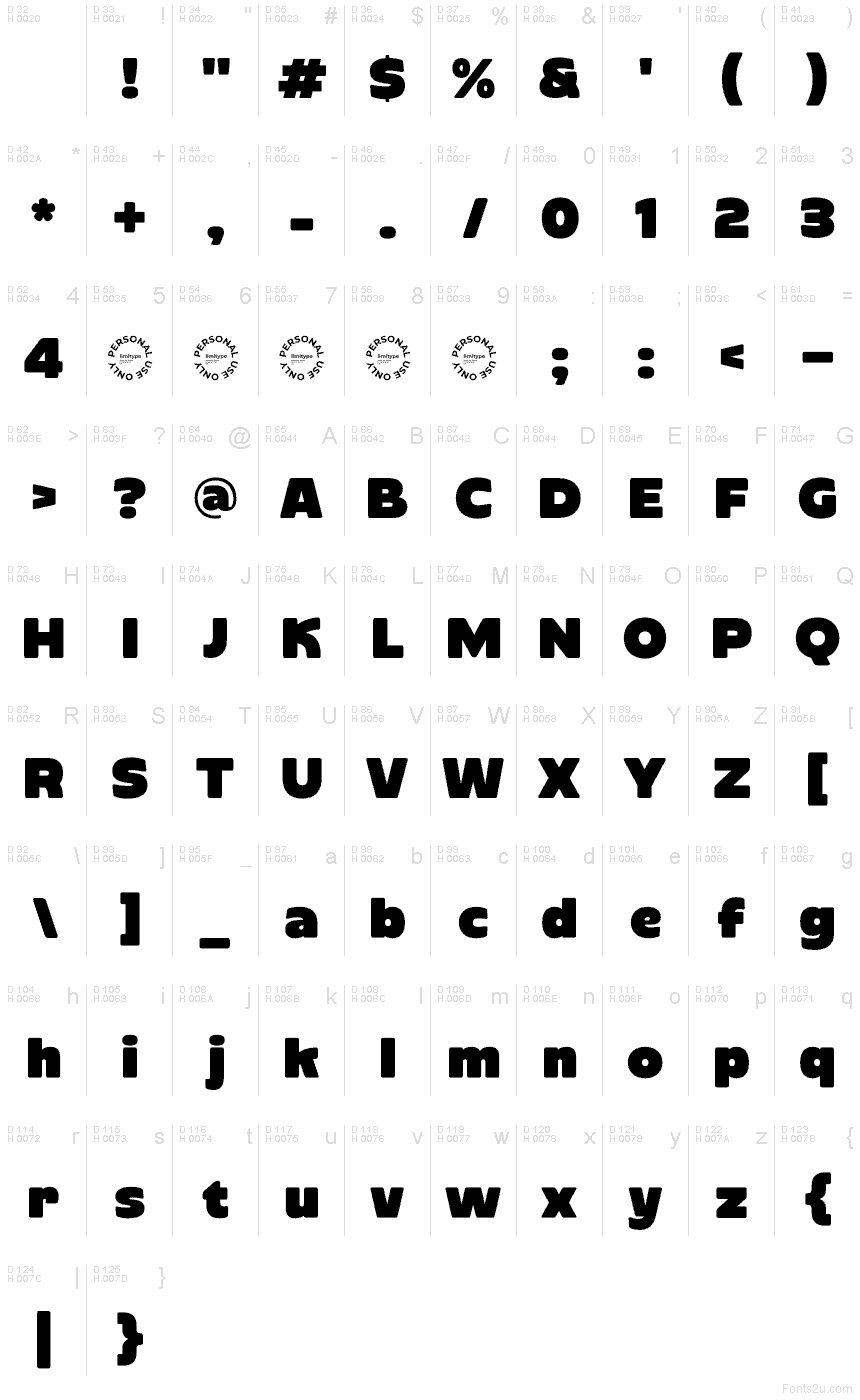
Kitora font by Limitype is a free rounded display sans serif font. Built around plush, oversized shapes and velvety curves, it delivers a bold voice without a hard edge. The letters feel pillowy and substantial, with generous bowls and tight rhythm that reads as friendly yet unmissable-like signage you can almost touch. It’s the rare chunky sans that stays legible when scaled down, but really sings when it’s big.
Using Kitora, headlines and logos gain instant warmth and punch. It shines on snack packaging, kids’ brands, café menus, playful posters, event flyers, app splash screens, and YouTube thumbnails. The smooth massing gives strong presence while keeping the tone upbeat. Pair this free font with a simple grotesk for body copy, and add a hair of extra tracking at large sizes to let those curves breathe.